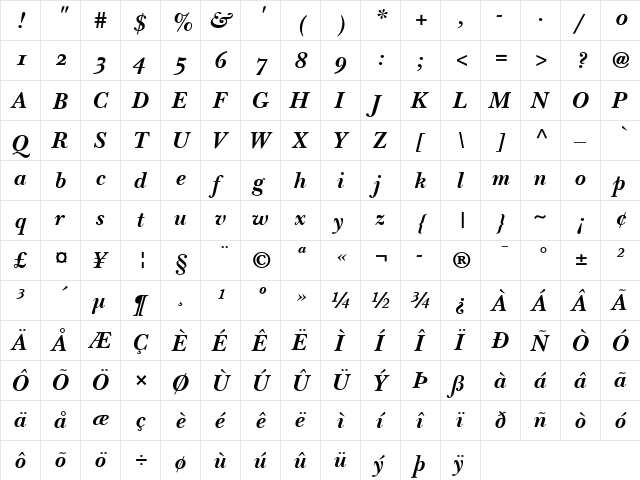
NewBaskerville SC Bold Italic Font Preview
Design Context for NewBaskerville SC Typeface
NewBaskerville SC takes a measured approach to typography — its balanced proportions and neutral character make it a reliable workhorse for both digital and print work. The dynamic lean of this cut emphasises speed and emphasis in any layout. The heavy weight commands attention and anchors typographic hierarchies.
Pro Tip: Use NewBaskerville SC for emphasis, pull quotes, and subheadings where its slanted energy can add rhythm to the layout.